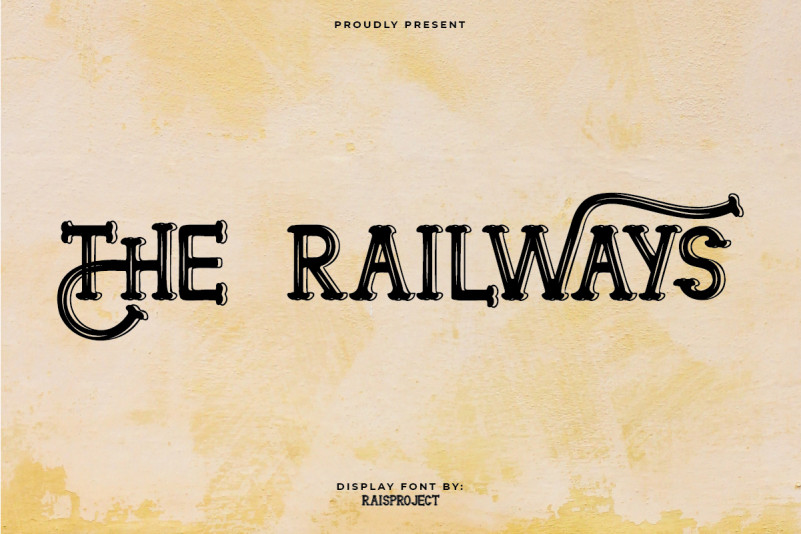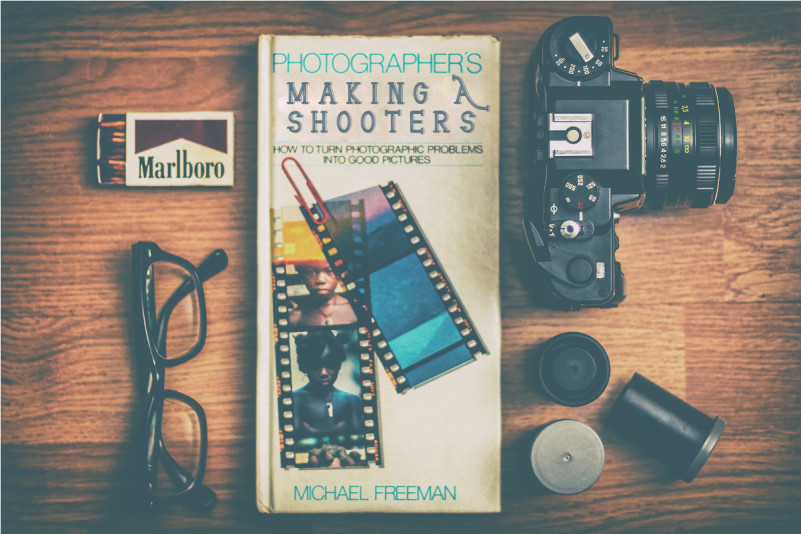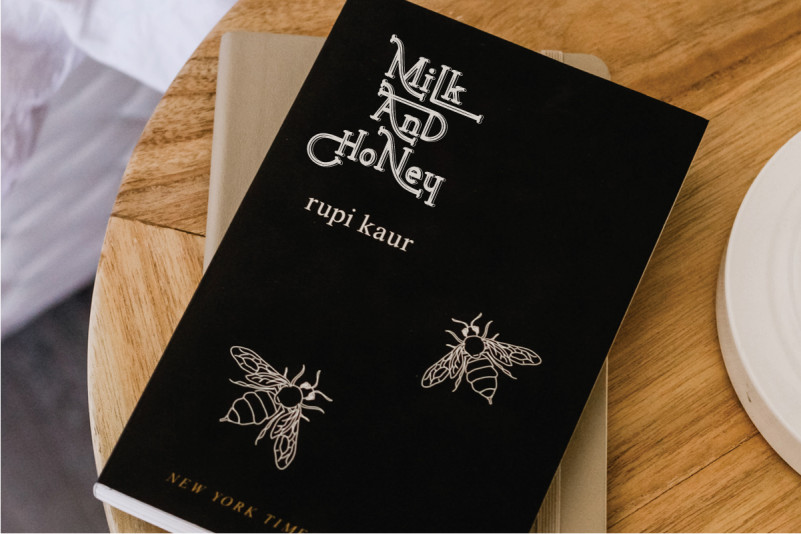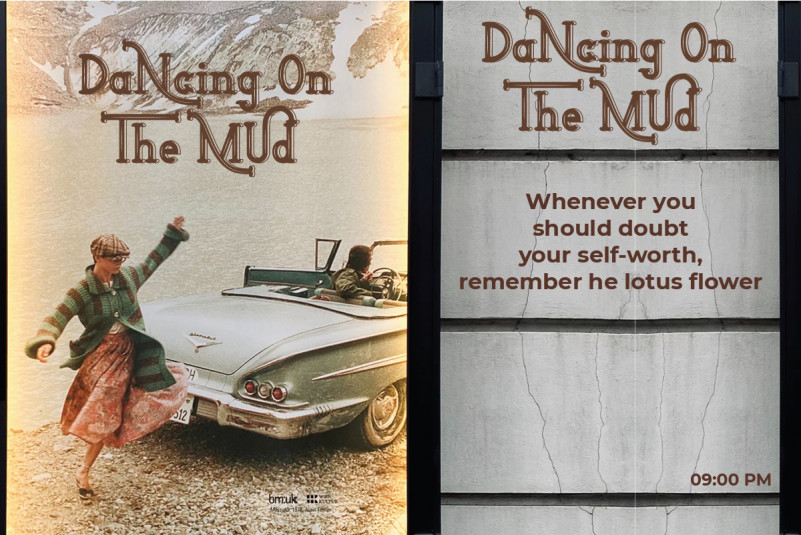
The Railways Font
The Railways Display Font
This Font is remotely made by RaisProject team in Indonesia. The font was handcrafted for any your special projects including : brands, promotion, events, games, advertising, magazine, signage, invitation, stationery, social media posts, label, or and any projects that need unique style. The industries for this font is Events, Games, Magazine, Music, Movies, Cafe, Restaurant etc